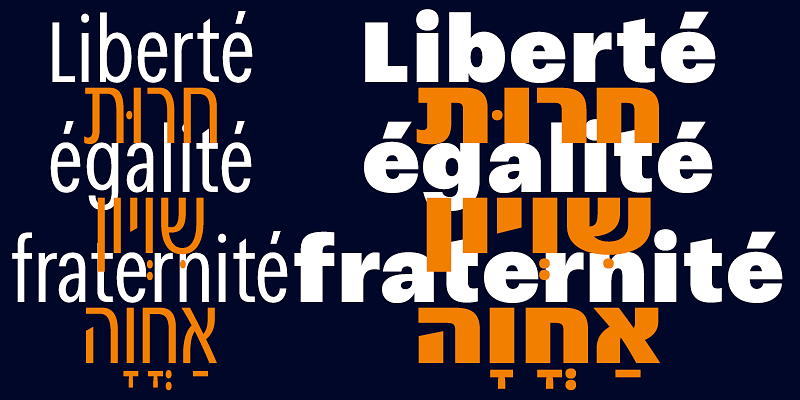
Narkiss Tam Font Free Download is a beautifully crafted Hebrew typeface that merges tradition with clarity, designed specifically for high legibility and stylistic refinement. As part of the iconic Narkiss family, Narkiss Tam carries forward the legacy of elegant Hebrew typography while being optimized for modern-day print and digital use.
With its clean proportions, subtle curves, and thoughtful spacing, Narkiss Tam is ideal for newspapers, books, cultural publications, branding, and multilingual design. It offers a professional, readable tone that works seamlessly in both body text and short headings—making it highly versatile across design applications.
Narkiss Tam Font Free Download maintains the warmth and familiarity of classic Hebrew letterforms while streamlining their structure for improved functionality. The result is a typeface that feels both timeless and contemporary—perfect for projects that need a strong cultural presence without compromising clarity or flow.
Elegant, practical, and deeply rooted in Hebrew typographic heritage, Narkiss Tam is a font that honors the past while confidently stepping into the future.